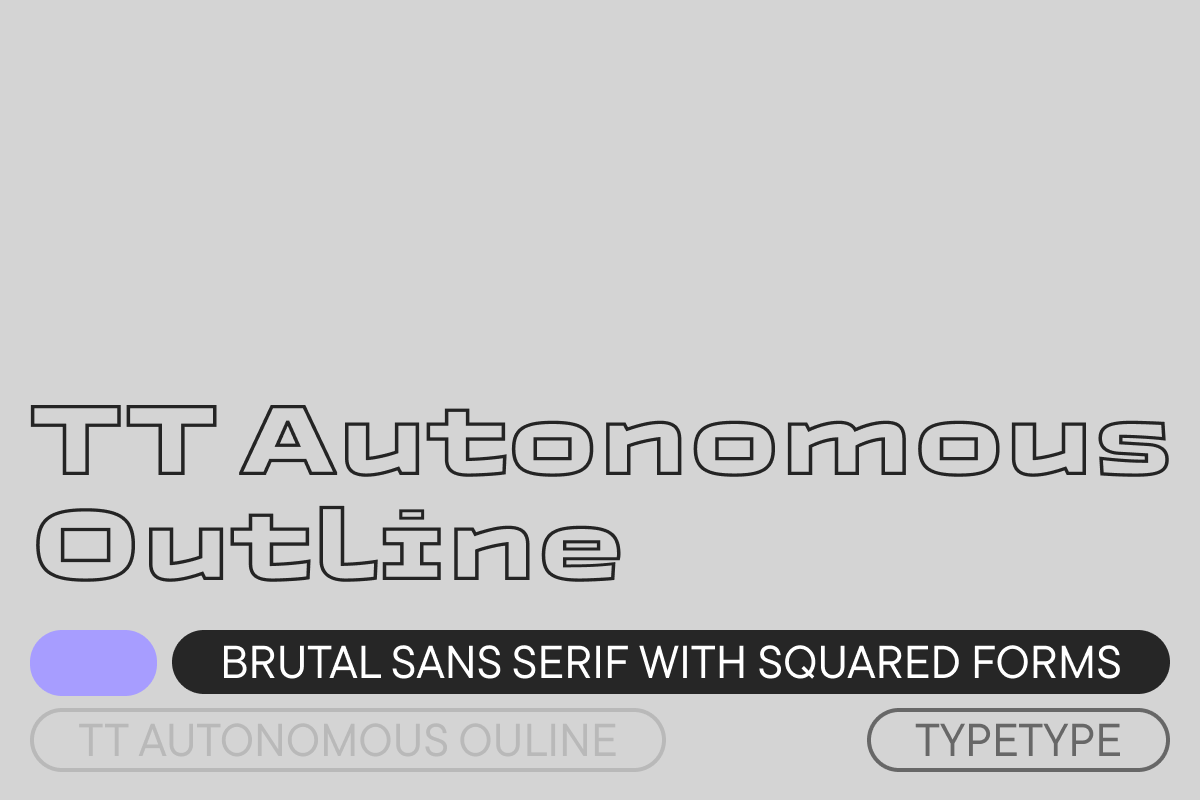
TT Autonomous ExtraBold Outline
TT Autonomous is a modern brutal technological sans serif. The basic visual characteristic of the typeface is the noticeable squareness of the characters and angular internal space. The width of the characters is inspired by automobile logotype proportions, which are mostly rather wide. In addition, we created a couple of outline styles which are great for use in titles and large inscriptions and perfectly match the basic family and the monospaced family.